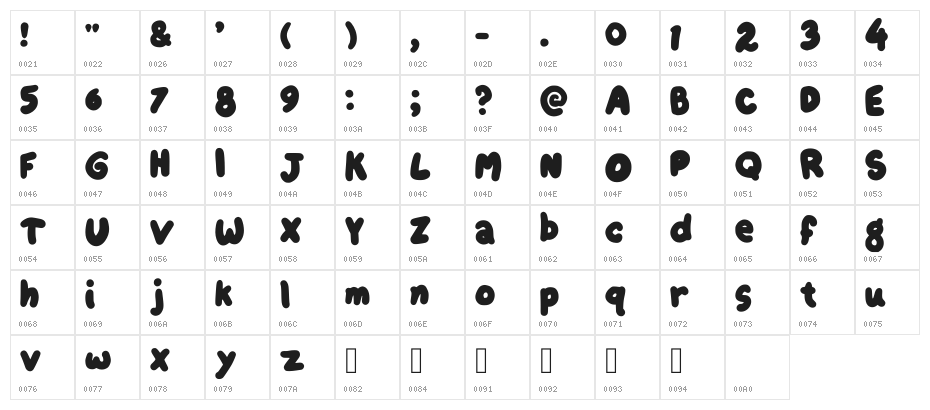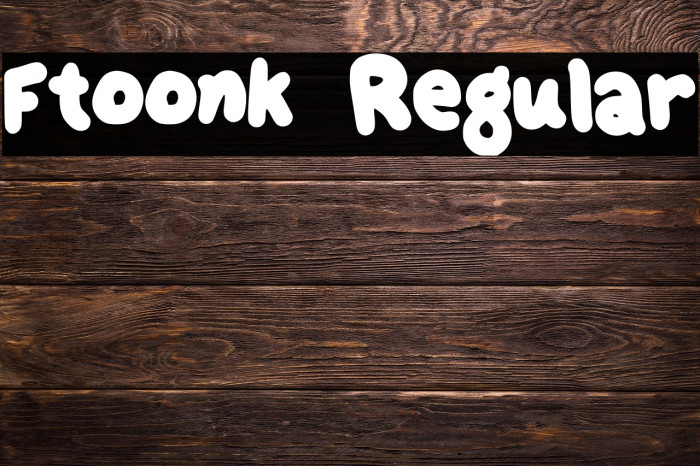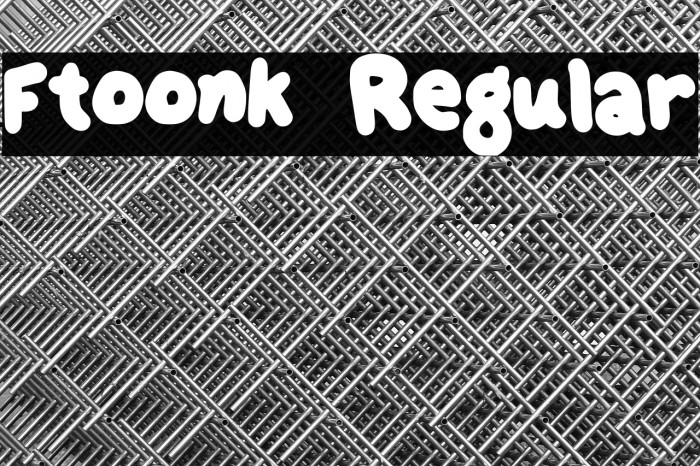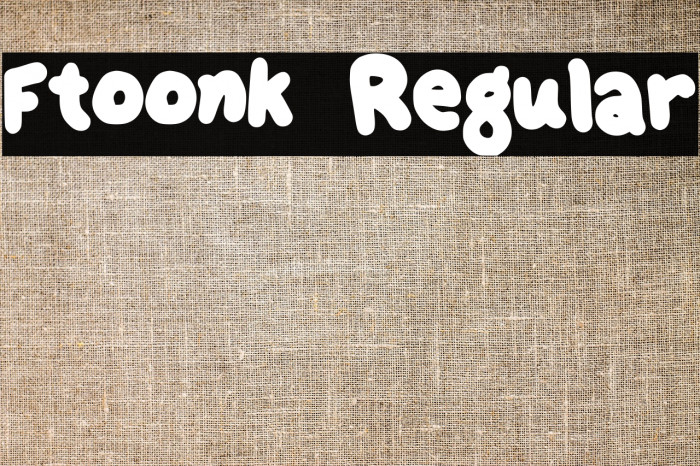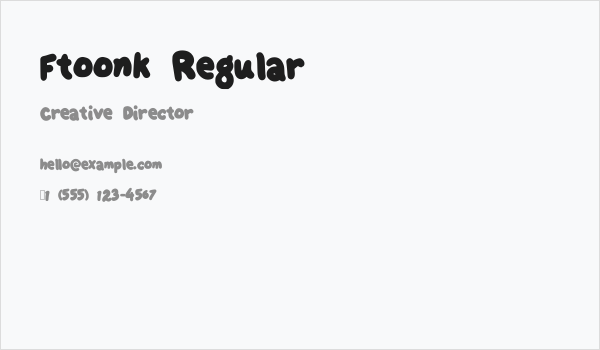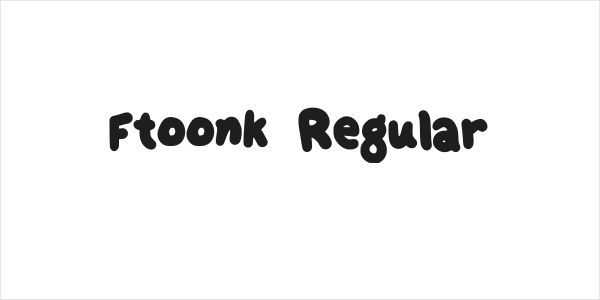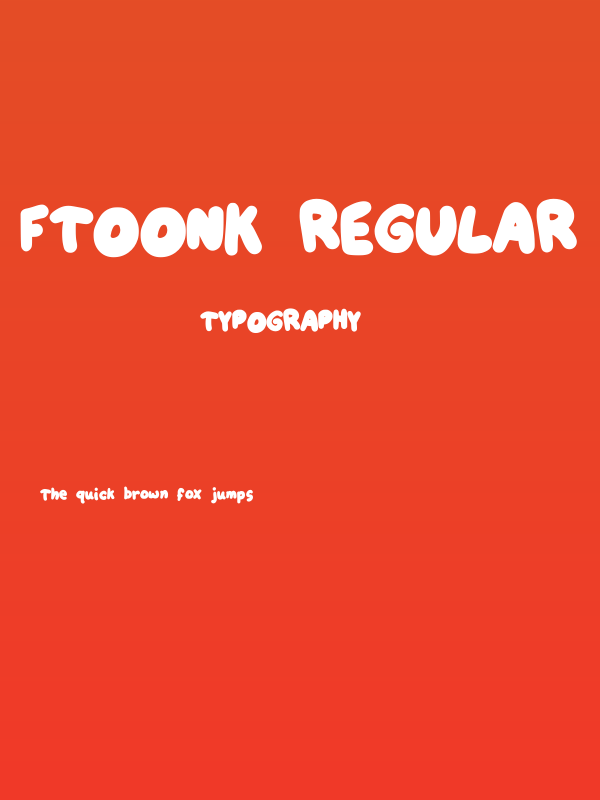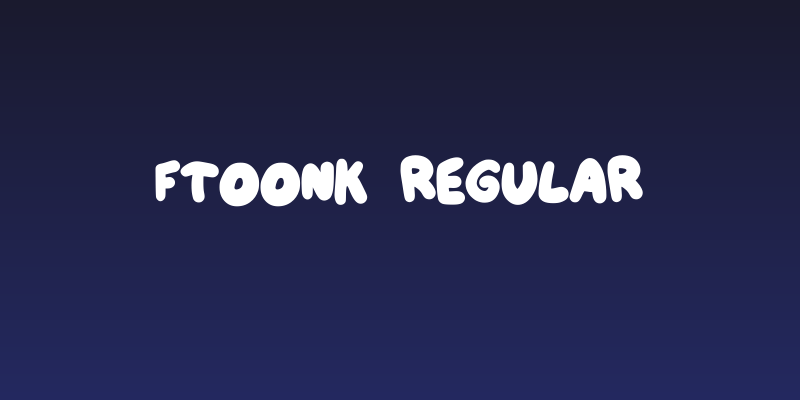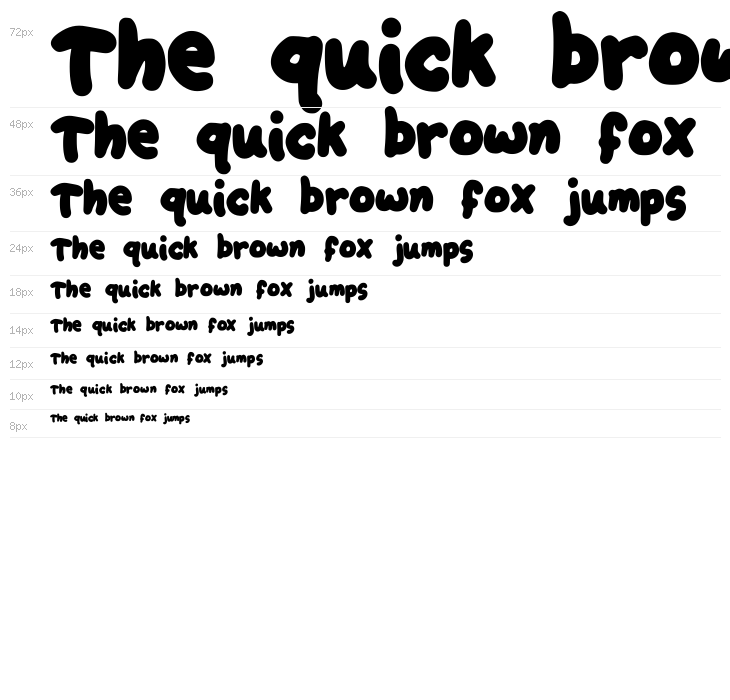
Ftoonk Regular Font
Ftoonk Regular Description
This playful and bold font features thick, rounded characters that convey a sense of fun and creativity. The letters are uniformly bold, with a slightly irregular shape that adds a whimsical touch. The font maintains consistent thickness throughout, giving it a cohesive and solid appearance. The rounded edges and lack of sharp angles make it approachable and friendly. It's particularly effective in capturing attention due to its substantial weight and unique style, making it ideal for projects that require a standout visual element.
| Proposed Projects | Perfect for children's books, playful branding, posters, and creative advertising campaigns. |